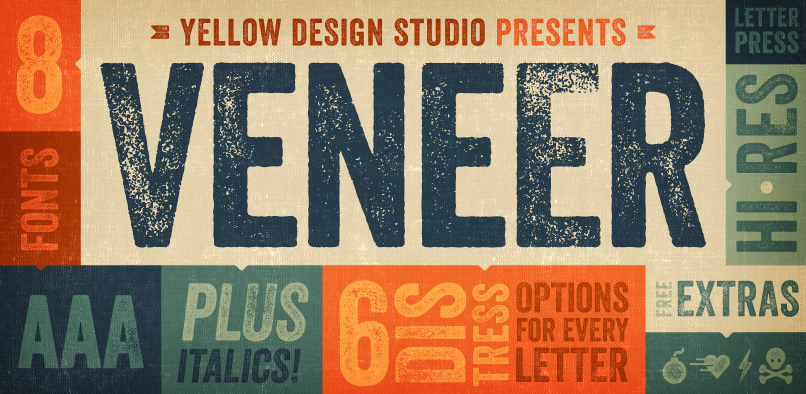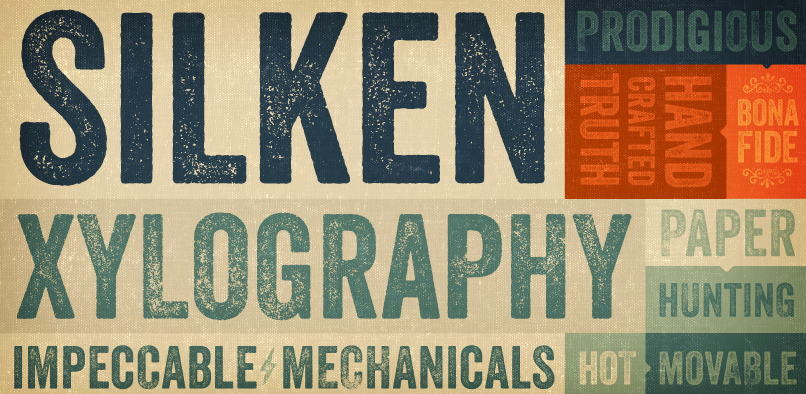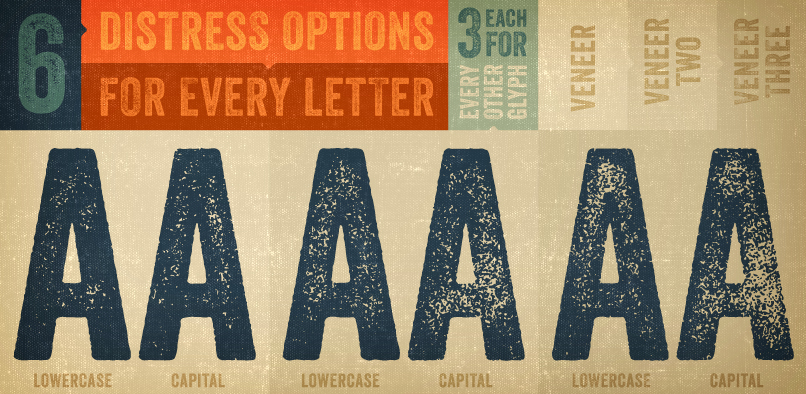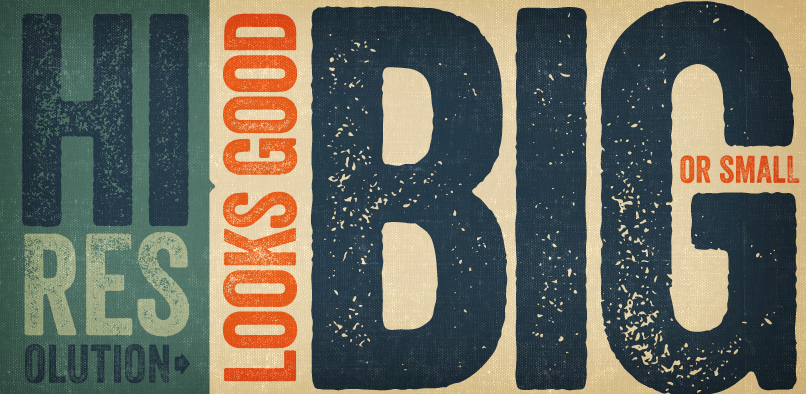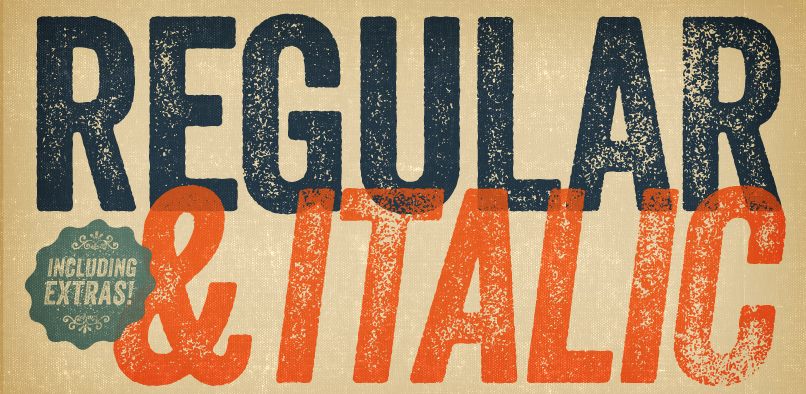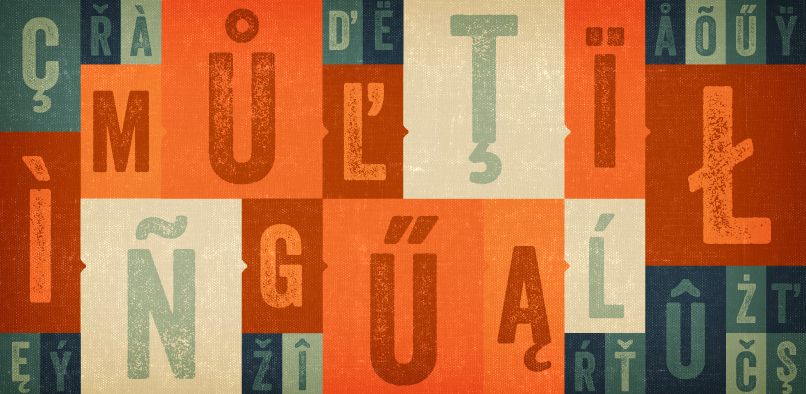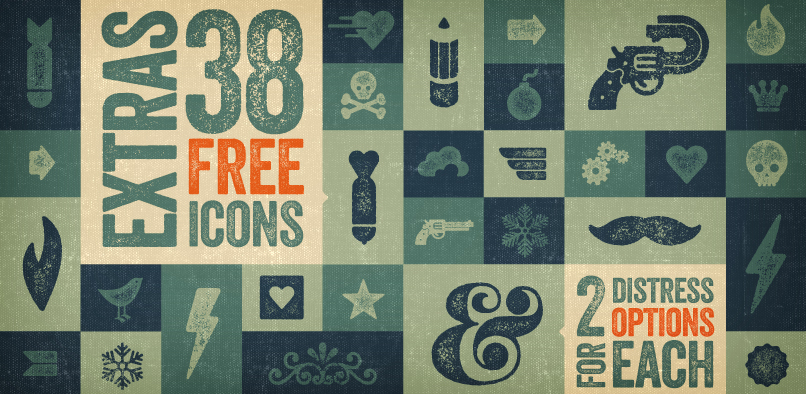
Veneer from Yellow Design Studio is a high resolution hand-crafted letterpress font that’s vintage and authentic with a touch of grunge. It’s highly customizable with six distress options for every letter and three for all other characters, and because it’s remarkably detailed, it looks great even at very large sizes. In addition it includes a matching set of funky extras…for free!
The Veneer family includes Veneer, Veneer Two, and Veneer Three with Veneer containing the least distressed characters and Veneer Three the most. Mix and match as desired to create realistic letterpress type.